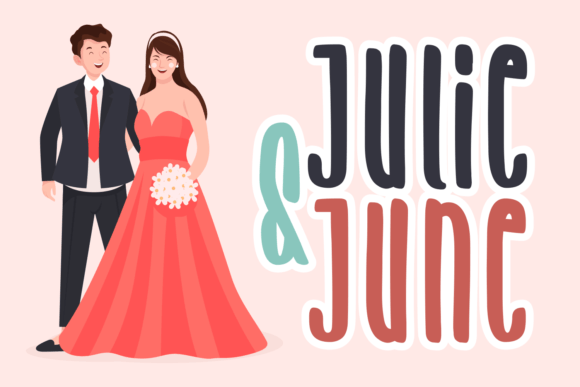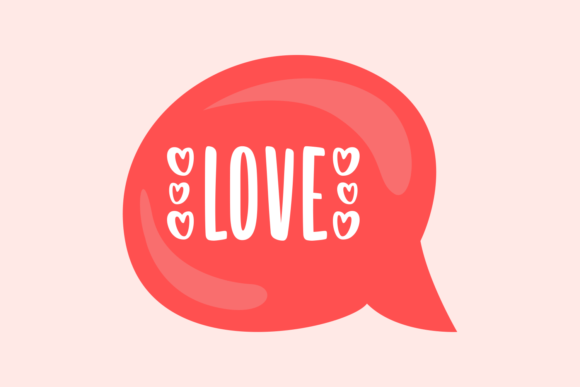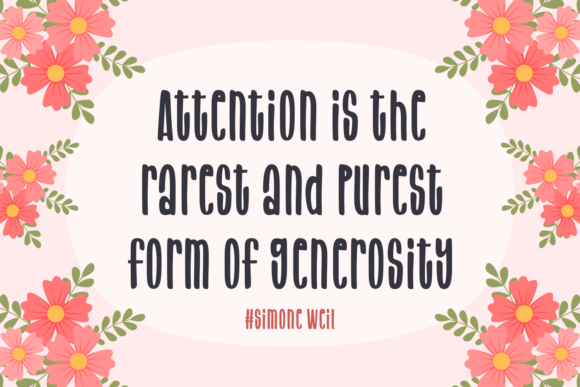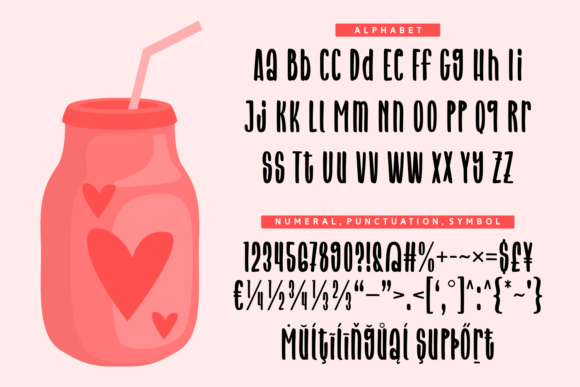
Introducing Deepest Heart Font: The Perfect Handwritten Companion for Your Creative Projects
Are you on the lookout for a font that adds a touch of warmth and friendliness to your designs? Look no further than the Deepest Heart Font, a beautifully crafted handwritten font that is sure to bring a smile to your face. Designed with a lovely and approachable style, Deepest Heart is the perfect companion for your diary planner, journal, and a wide range of creative projects.
What Makes Deepest Heart Font So Special?
Deepest Heart Font is more than just a font – it’s a way to add a personal touch to your designs. With its friendly and approachable style, it’s perfect for anyone looking to create a sense of warmth and connection with their audience. Whether you’re designing a diary planner, journal, or any other project, Deepest Heart Font is sure to bring a touch of personality and whimsy to your work.
Perfect for Everyday Use
Deepest Heart Font is designed to be versatile and easy to use, making it perfect for everyday projects such as:
- Diary planners and journals
- Back to school projects
- Weddings and party decorations
- Festivals and holiday-themed designs
- Blogs and social media posts
- Clothing and child-related designs
Why Choose Deepest Heart Font?
There are many reasons why Deepest Heart Font stands out from the crowd. Here are just a few:
- Unique and Handwritten Style: Deepest Heart Font has a one-of-a-kind handwritten style that is sure to add a touch of personality to your designs.
- Easy to Read and Use: The font is clear and easy to read, making it perfect for a wide range of projects.
- High-Quality Design: The font is designed with high-quality and attention to detail, ensuring that it looks great in any design.
- Experiment with Different Sizes and Colors: Try out different sizes and colors to see what works best for your design.
- Pair with Other Fonts: Deepest Heart Font pairs well with other fonts, so don’t be afraid to experiment with different combinations.
- Add a Personal Touch: Use Deepest Heart Font to add a personal touch to your designs, such as a handwritten note or a special message.
Deepest Heart Font is a beautiful and versatile handwritten font that is perfect for anyone looking to add a touch of warmth and friendliness to their designs. With its unique and approachable style, it’s perfect for a wide range of creative projects, from diary planners and journals to weddings and party decorations. So why wait? Add Deepest Heart Font to your font library today and start bringing your designs to life!
Whether you’re a designer, crafter, or DIY enthusiast, Deepest Heart Font is sure to become a favorite in your font collection. So go ahead, get creative, and see what amazing designs you can come up with using Deepest Heart Font!